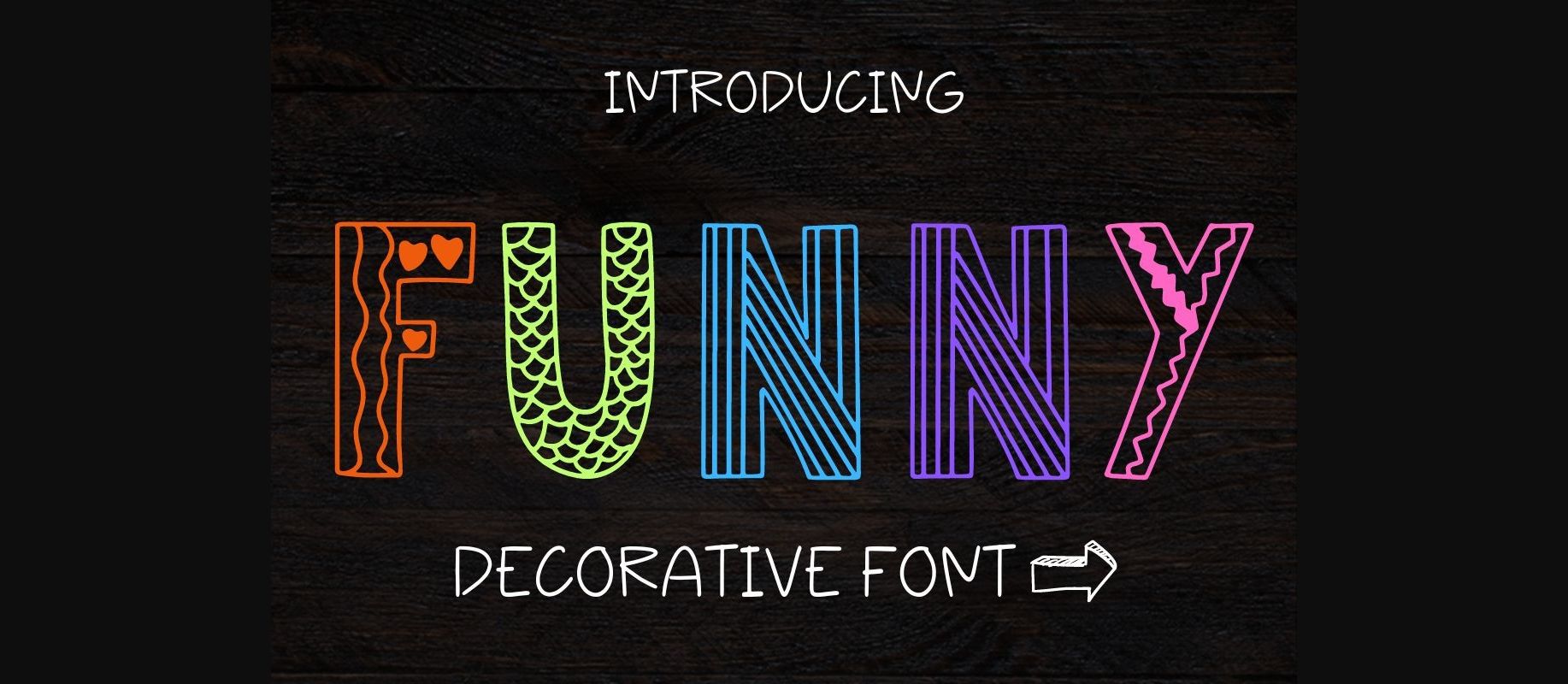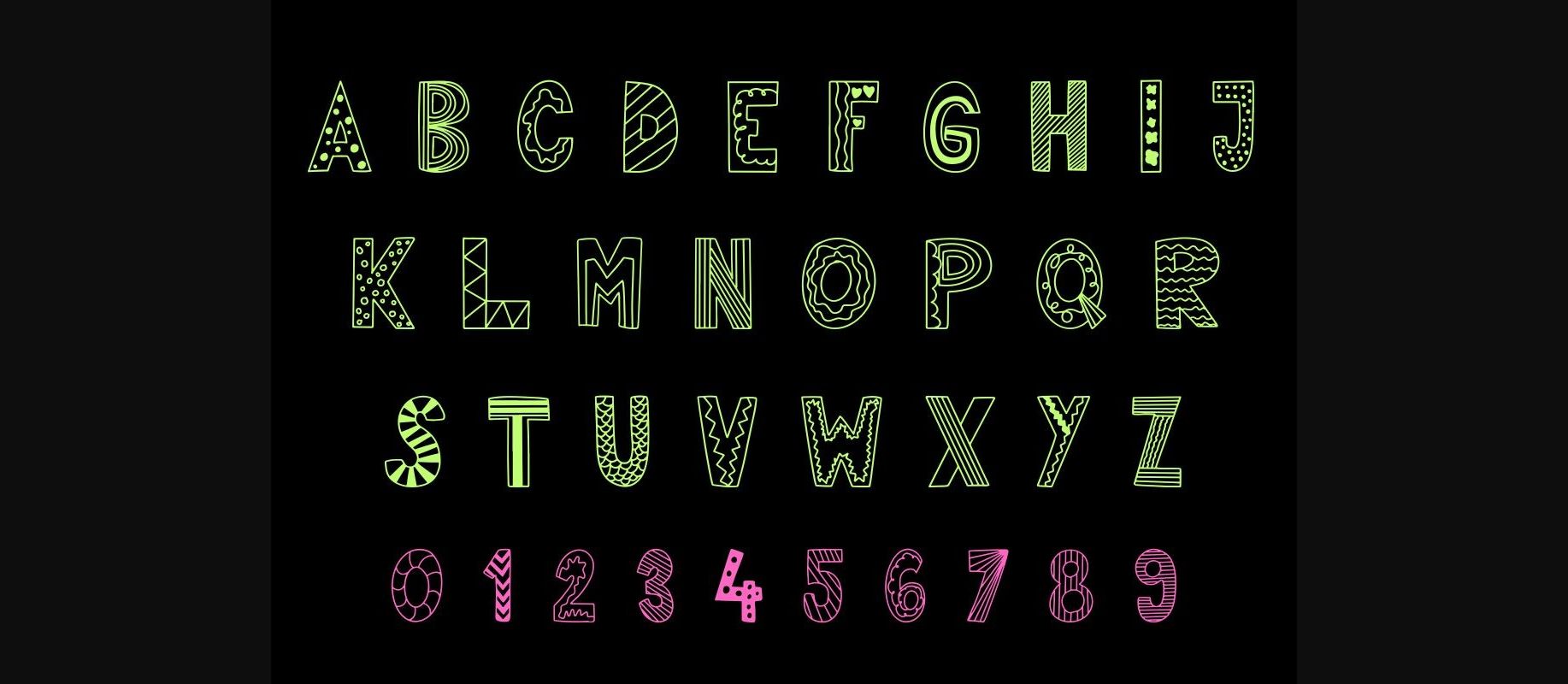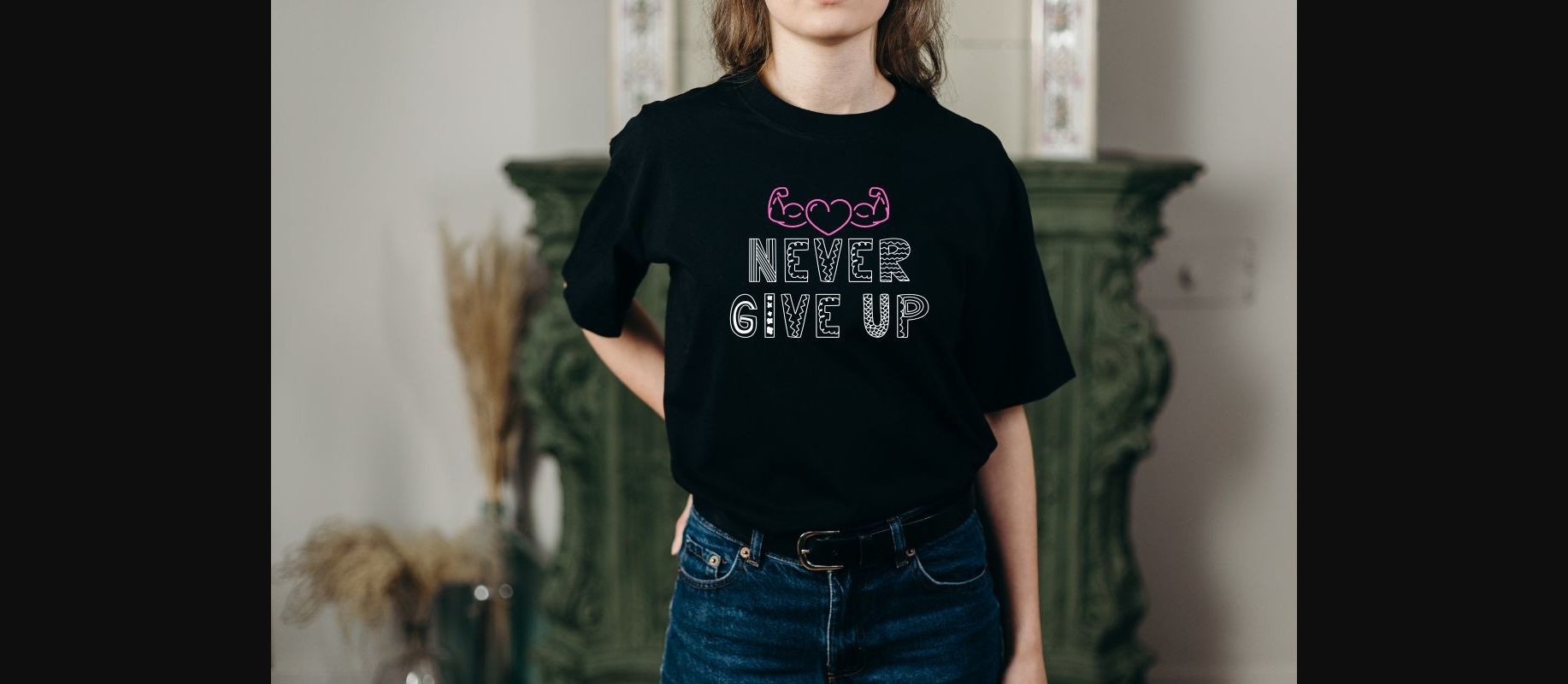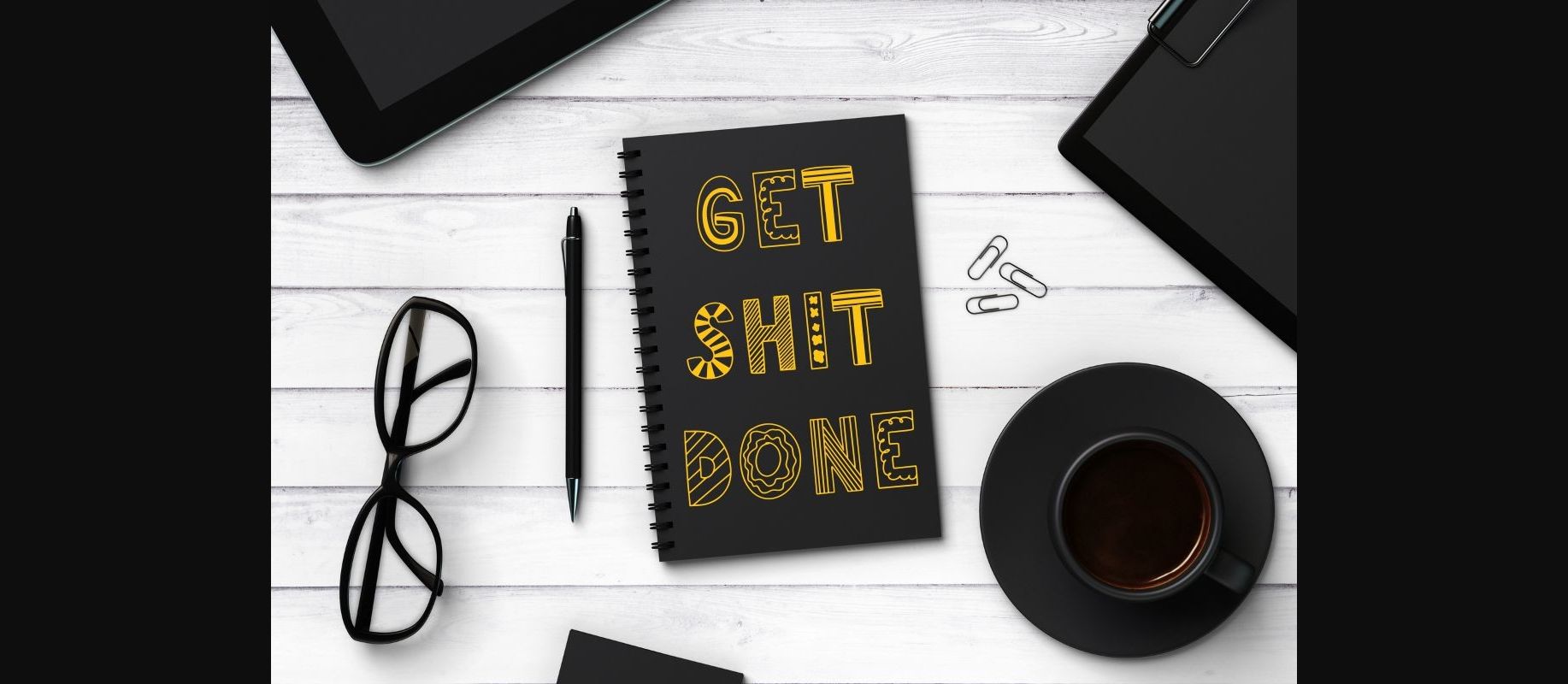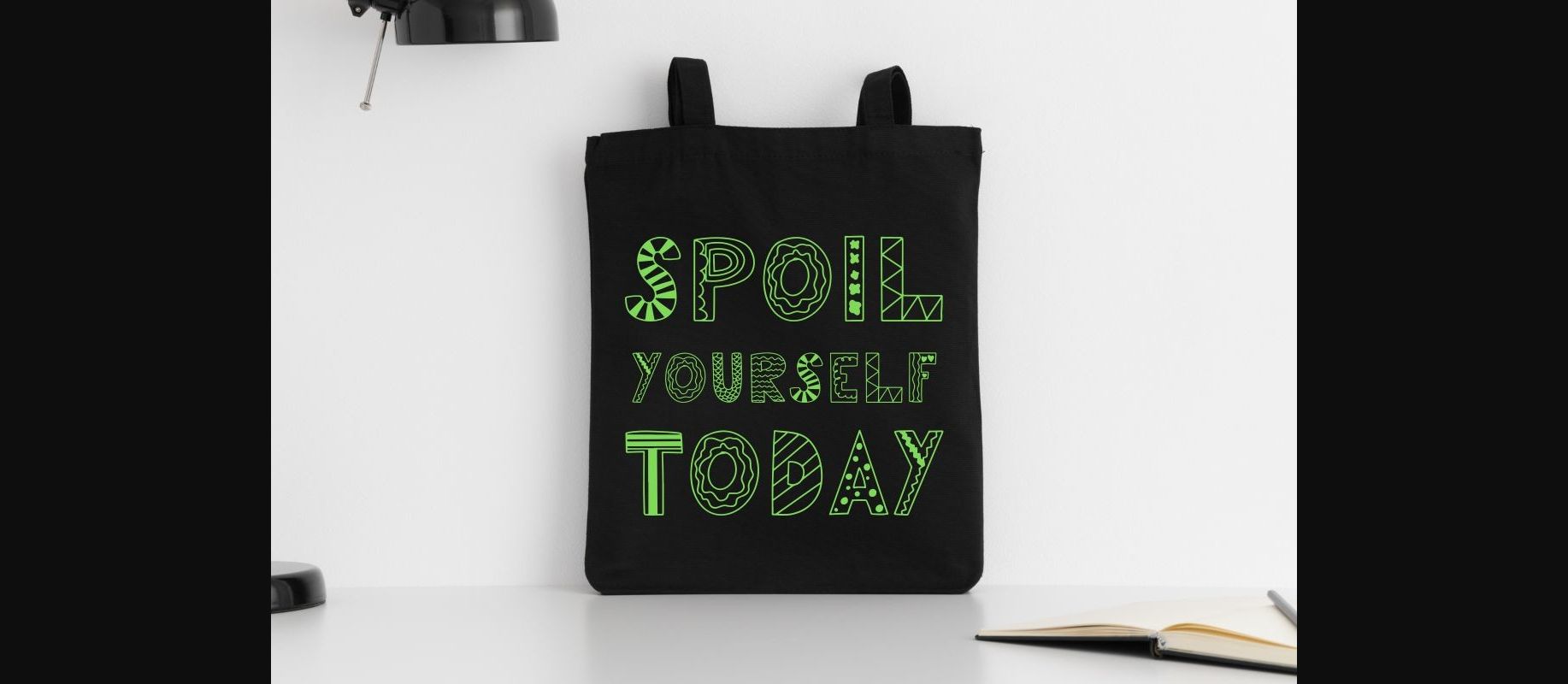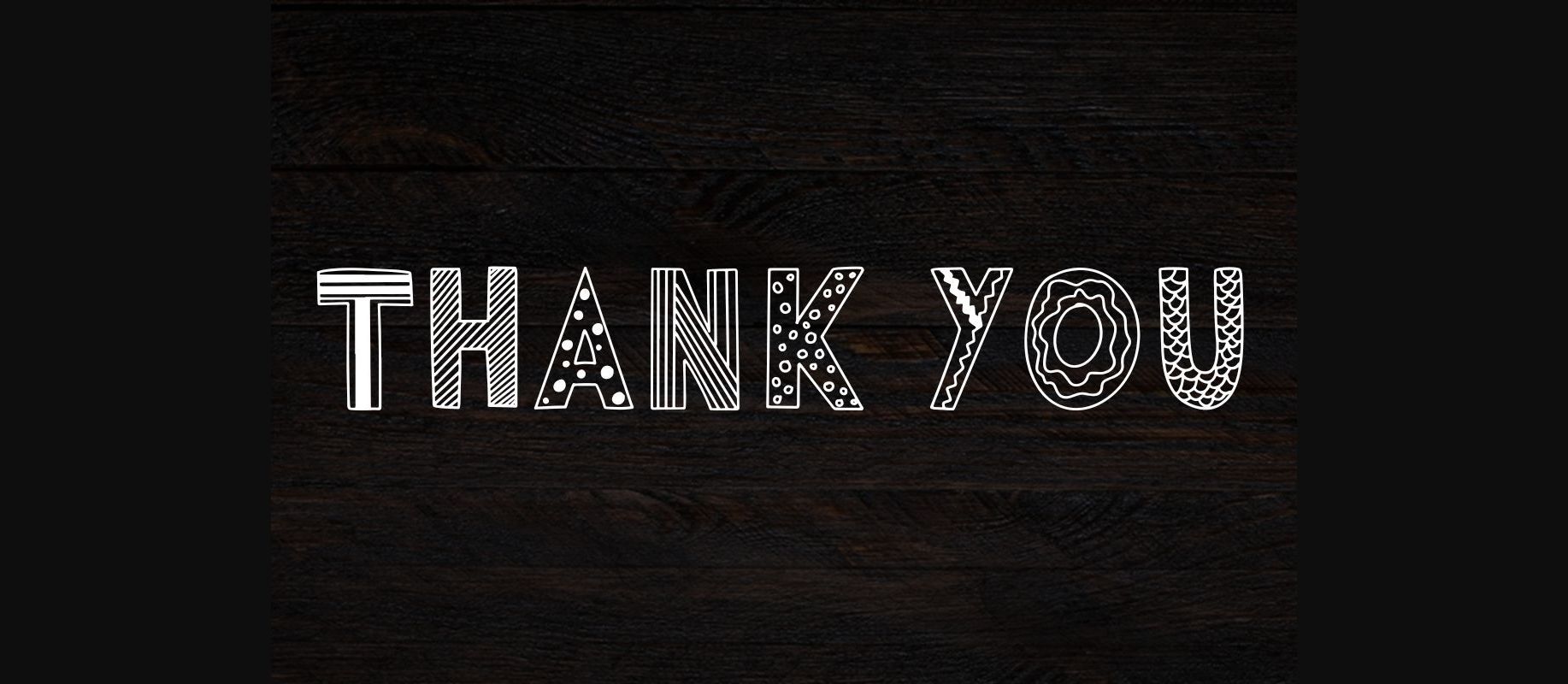
HomeDecorative FontsFunny Font Decorative Fonts Funny Font FacebookXPinterestWhatsApp 1 of 8 ... Funny Font Poster 2... Funny Font Poster 3... Funny Font Poster 4... Funny Font Poster 5... Funny Font Poster 6... Funny Font Poster 7... Funny Font Poster 8... About Funny Font Funny is a cool and fun decorative font. Cute and jolly, it will enhance the aspect of each of your designs. Add it to your creative projects, or party, and notice how it makes them come alive. DOWNLOAD NOW People also explored Sleep Font Larisa Font Lovely Font Bather Font White Coffee Font Maximum Profit Font Intybus Script Font Avocado Font Shark Font 279 0 TagsFunnyFunny Font Previous articleButterfly and Roses FontNext articleDog Paws Font LEAVE A REPLY Cancel reply Comment: Please enter your comment! Name:* Please enter your name here Email:* You have entered an incorrect email address! Please enter your email address here Website: Save my name, email, and website in this browser for the next time I comment. Personal Use Free Deco Neue Wilde Personal Use Free Read more about this font Waverly Date Personal Use Free Read more about this font Budmo Personal Use Free Read more about this font Osaka Personal Use Free Read more about this font BLOG Free Fonts Risk: Why Free Fonts Can Be Dangerous for Designers Free Fonts Risk: Why Free Fonts Can Be Dangerous for Designers Using free fonts is a common practice in web and graphic design. However, the... Free vs Paid Fonts: Why Investing in Premium Fonts Is Worth It The 10 Best Handwriting Fonts to Add Personality to Your Designs Best Fonts for T-Shirt Design – Top 2025 Picks